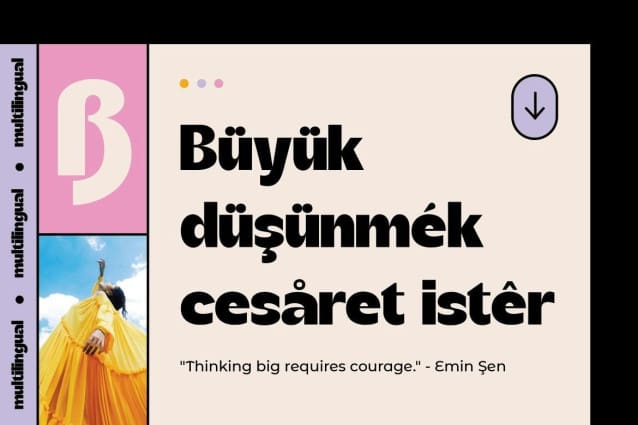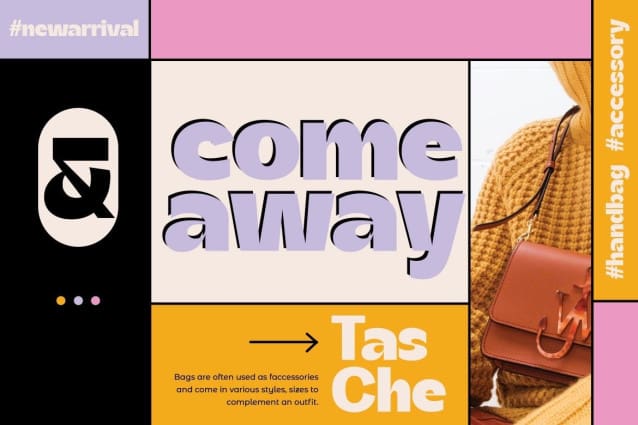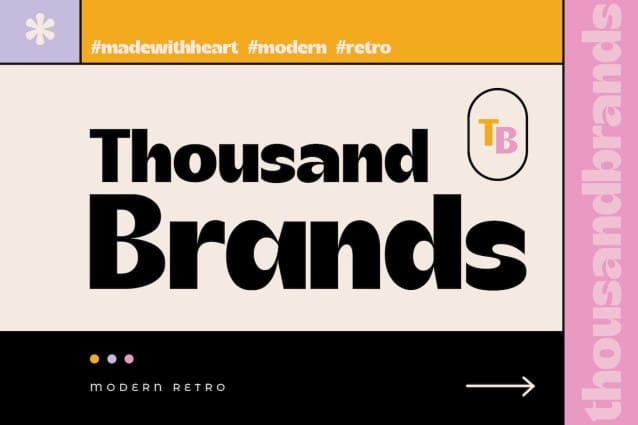
Thousand Brands Font
Thousand Brands Font is an elegant font. It’s a fun font that is very useful for many design projects. You can use it for logos, posters, menus, clothing, educational projects, etc.